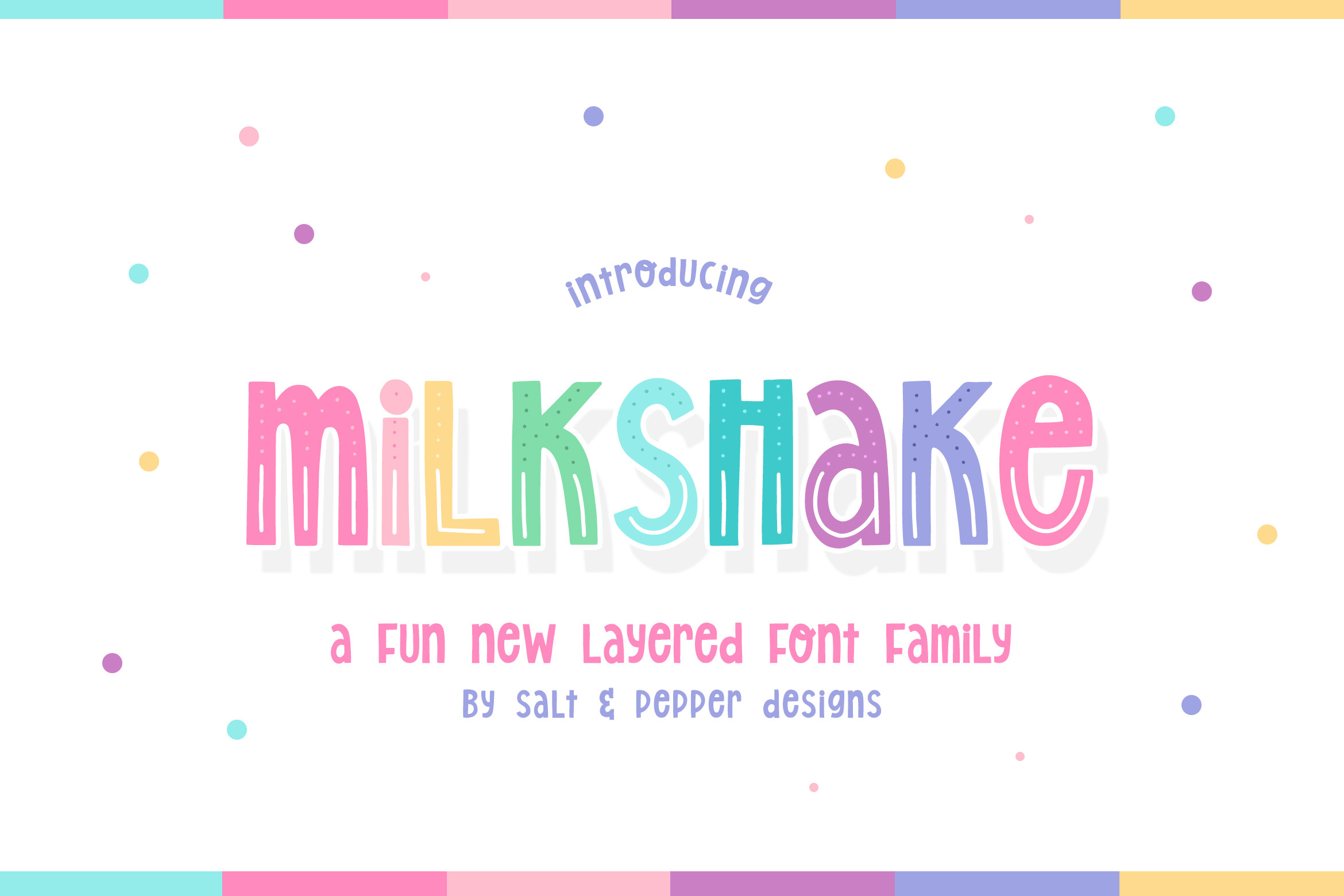
Milkshake is a fun, colorful and friendly display font. It embodies playfulness and authenticity and is the perfect choice for any children activity or school project.